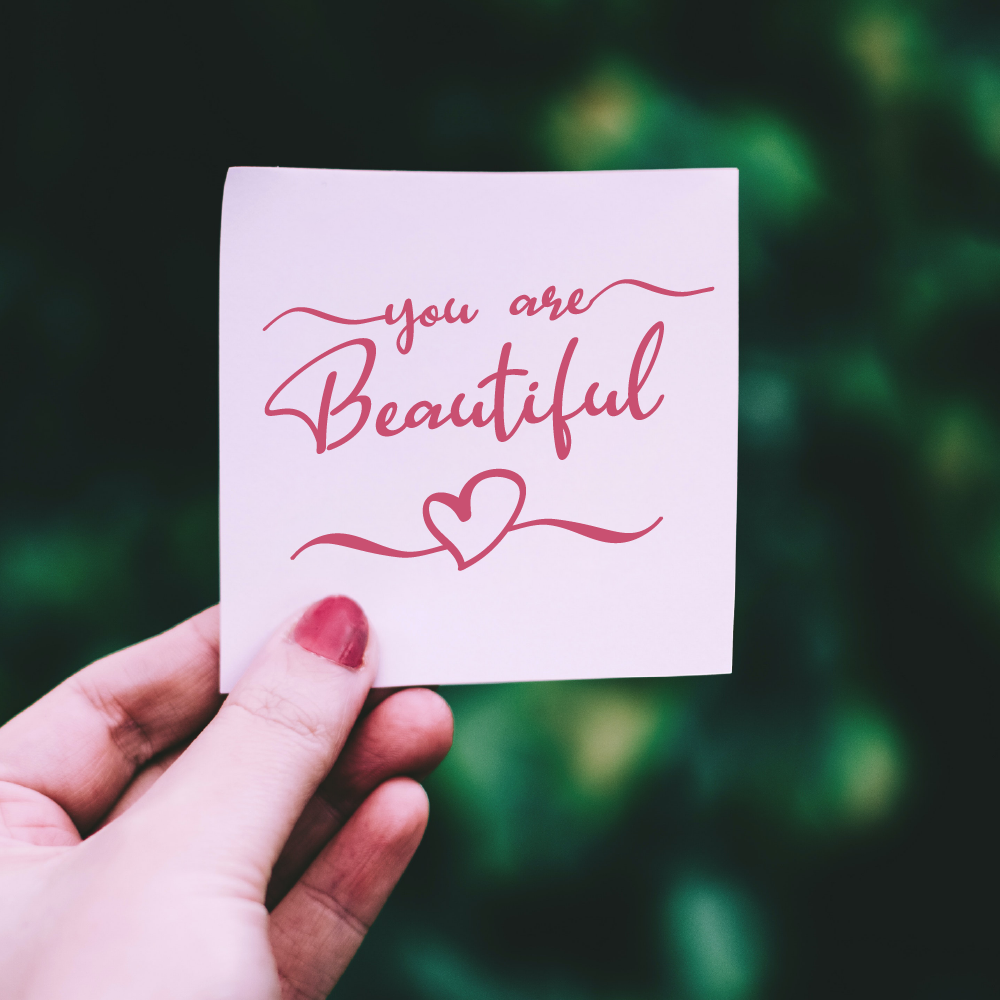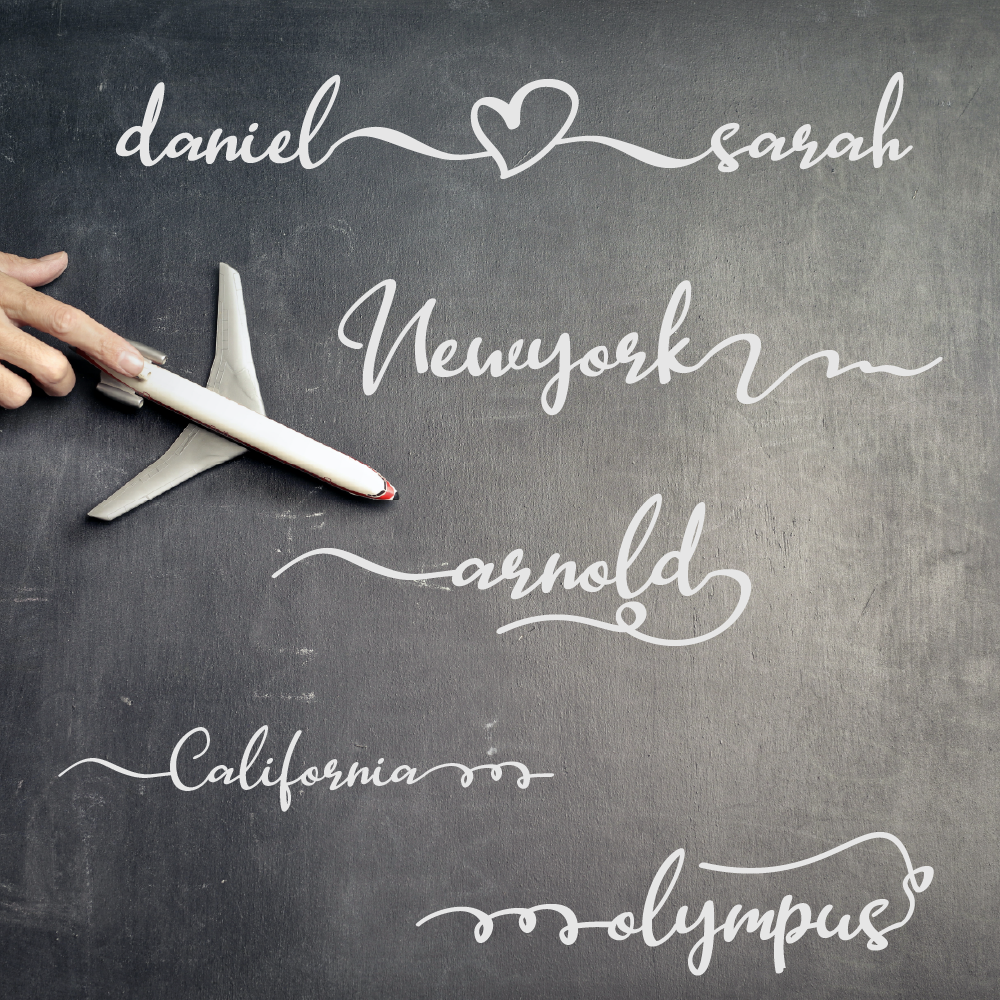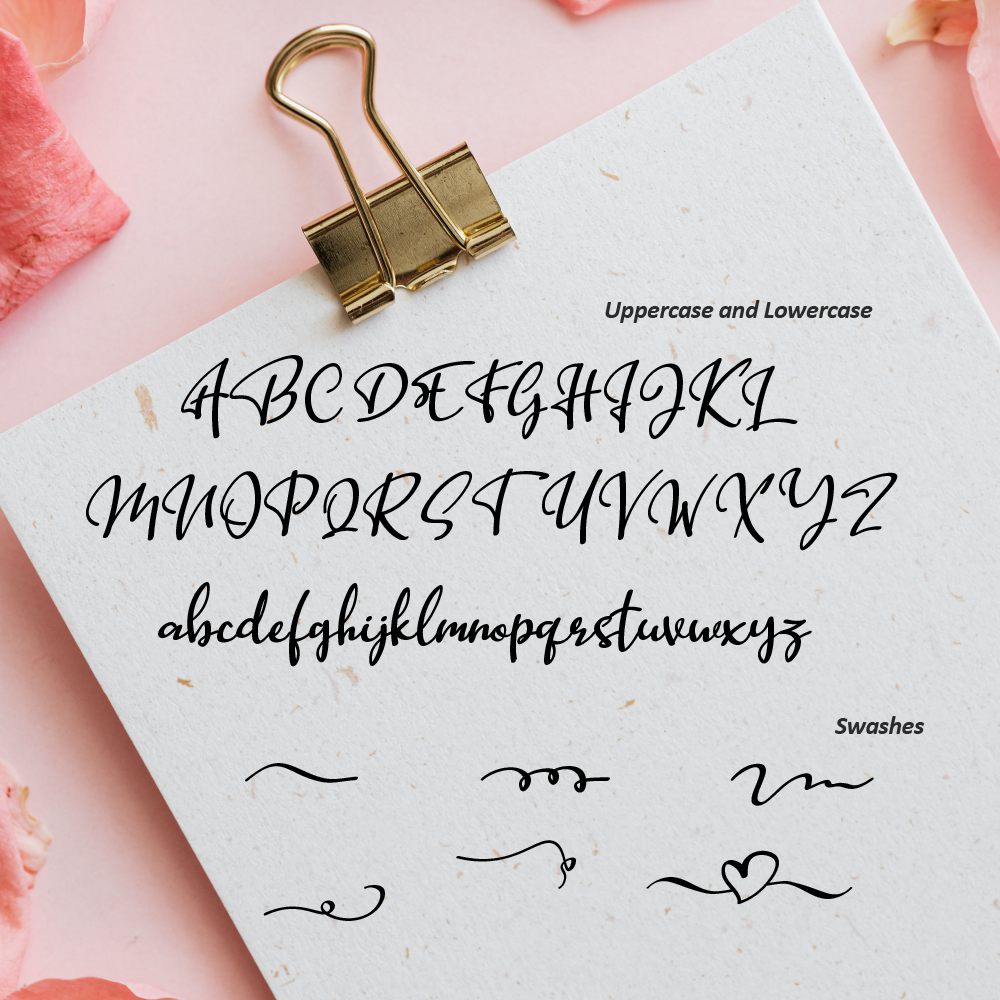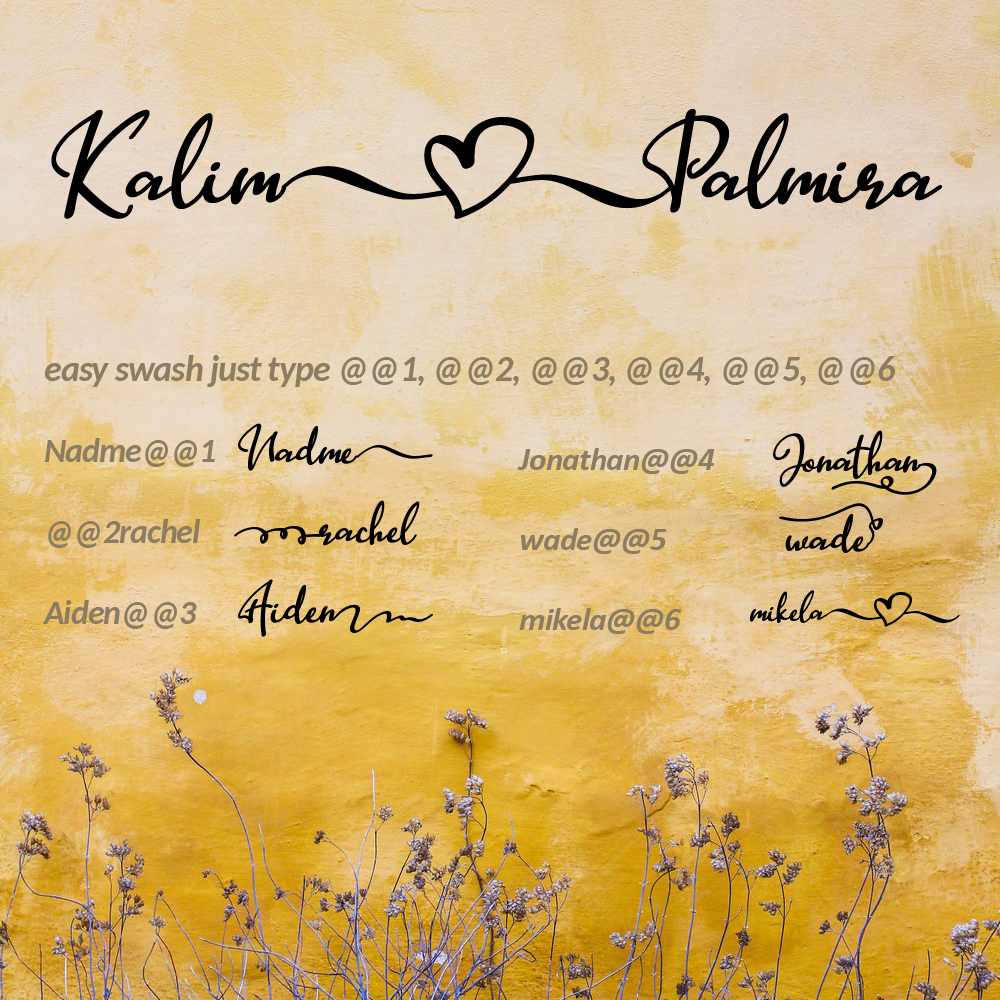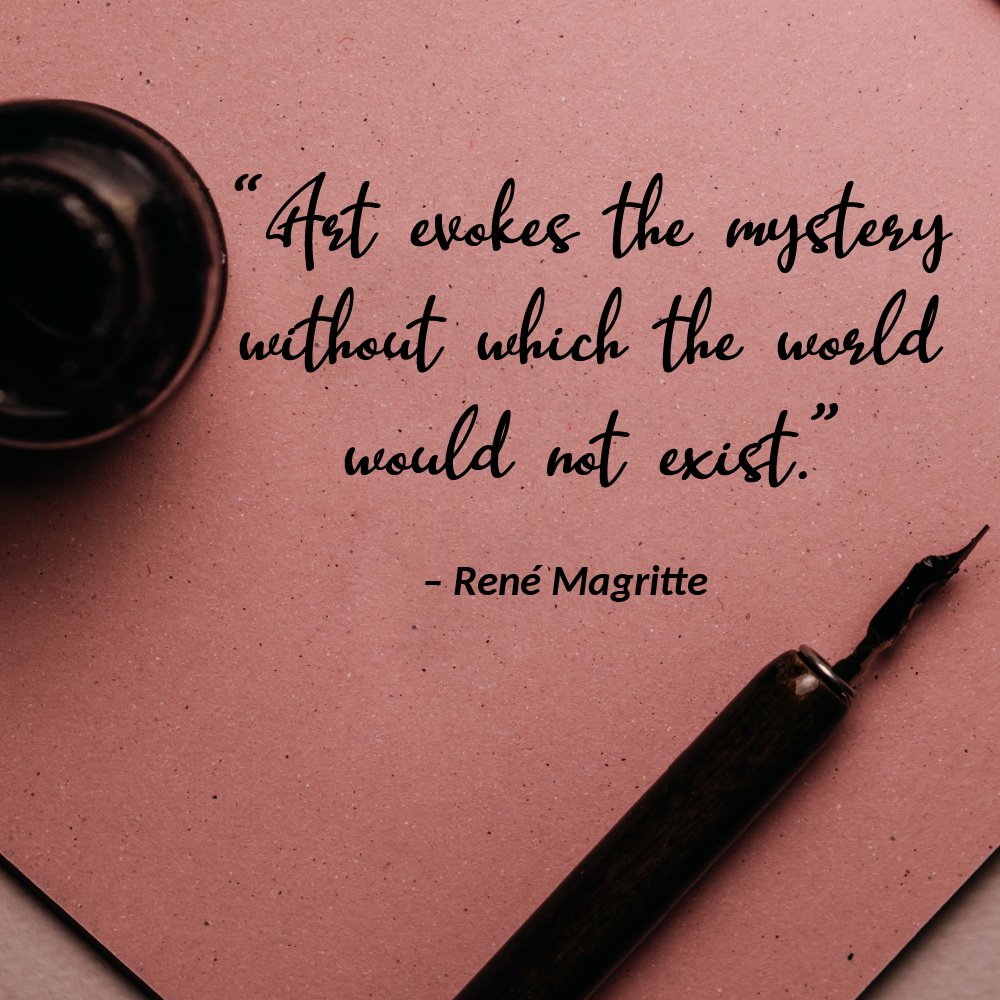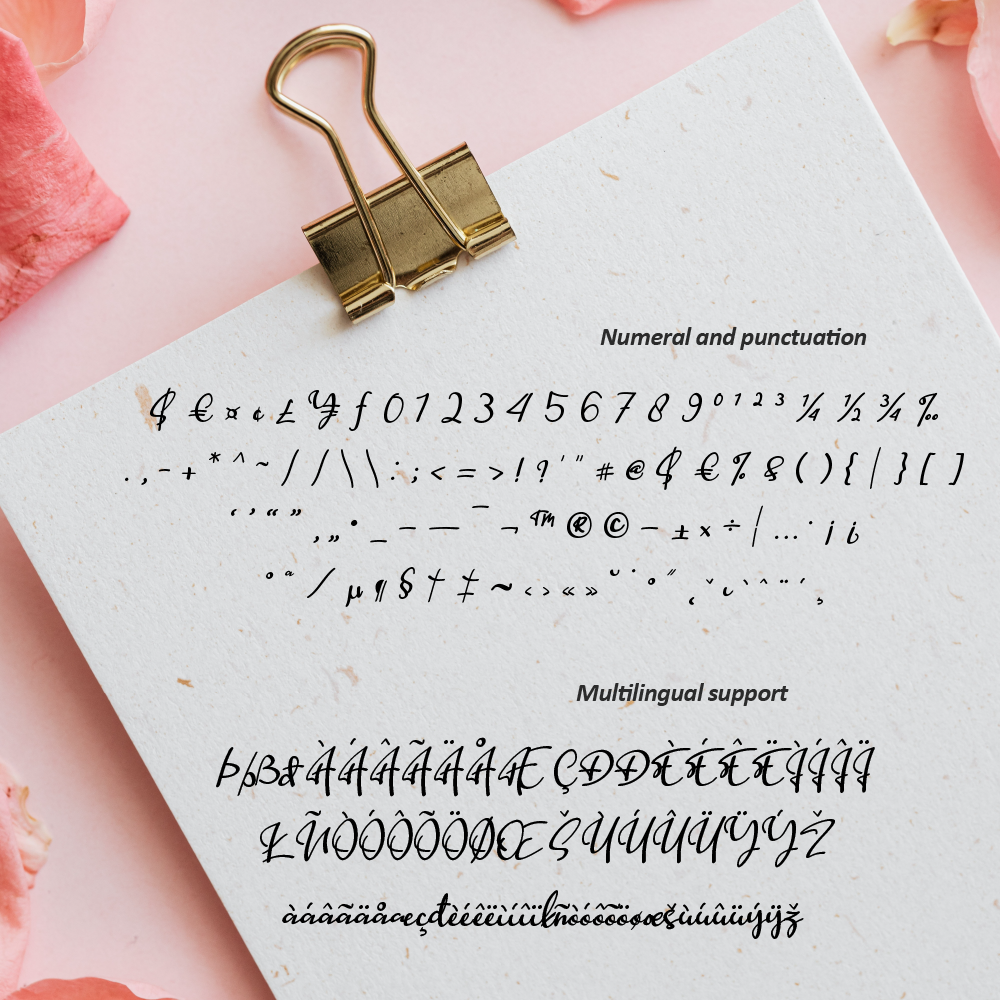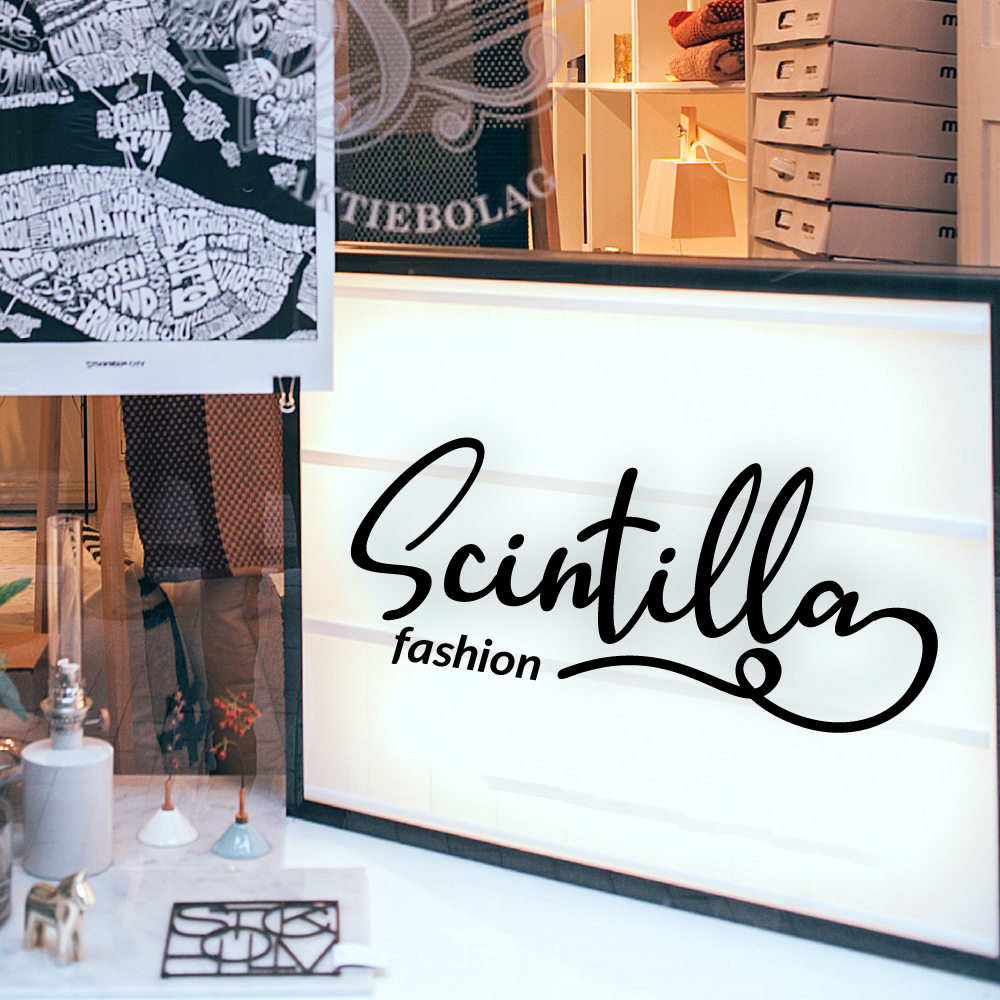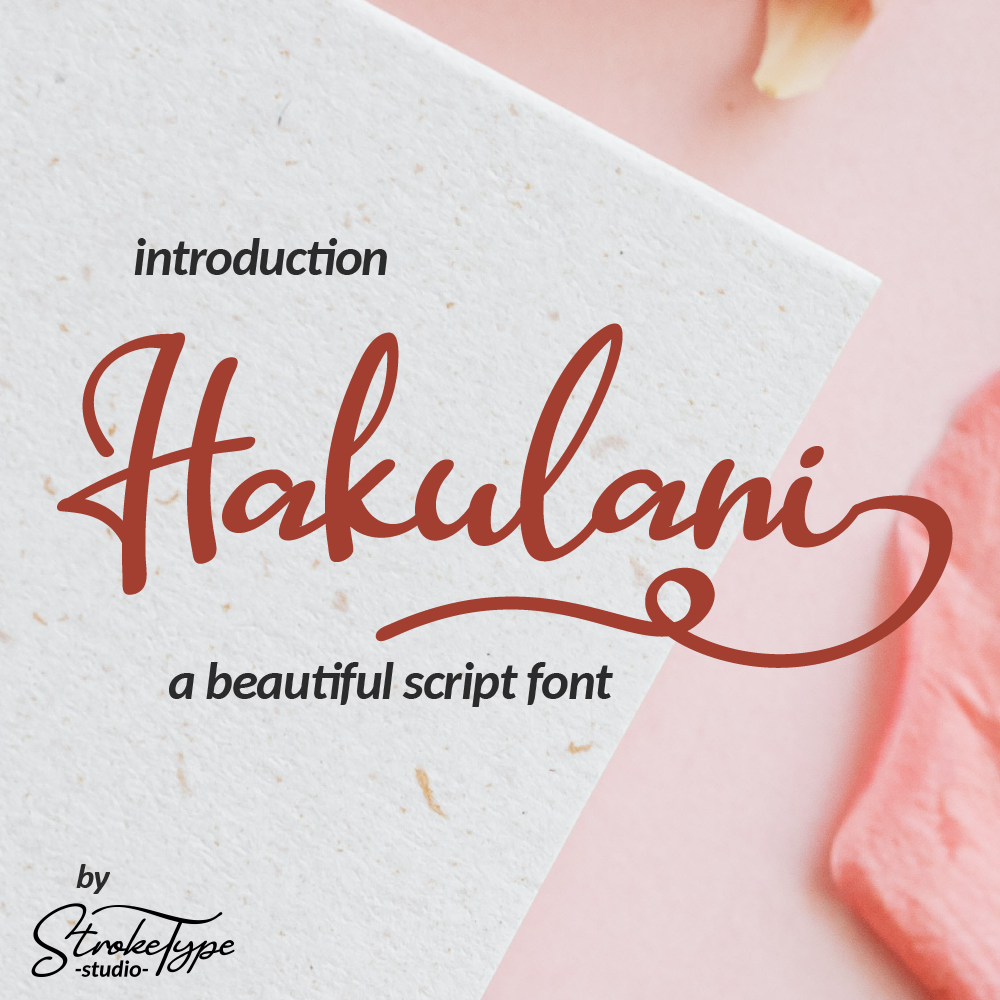
Hakulani Script Font
Introducing the lovely Hakulani Script Font!
Hakulani is a beautiful Script font, with a natural & stylish flow. Hakulani Font is perfect for many different project such as logos & branding, invitation, stationery, wedding designs, social media posts, advertisements, product packaging, product designs, label, photography, watermark, special events or anything.
Features
- Uppercase and Lowercase letters
- Numbering and Punctuations
- Multilingual Support
- Easy access swash, just type @@1, @@2, ... etc